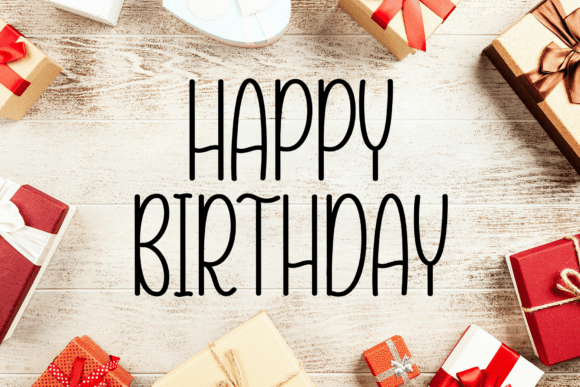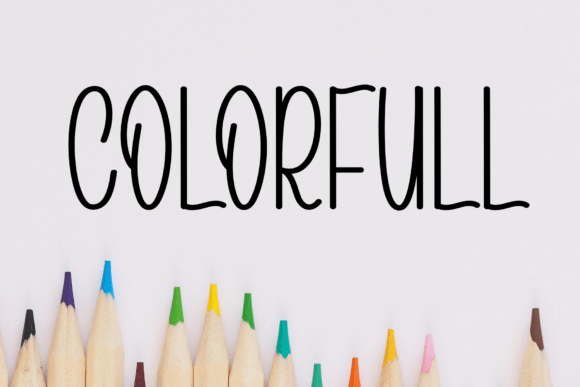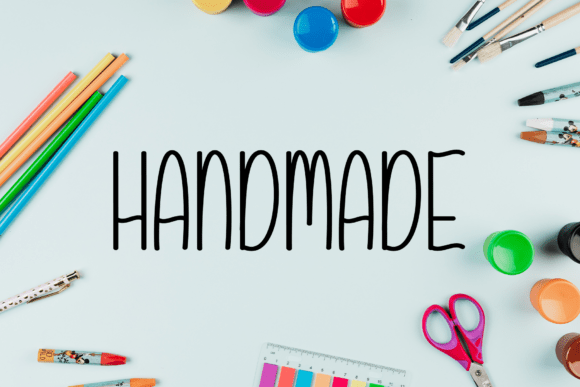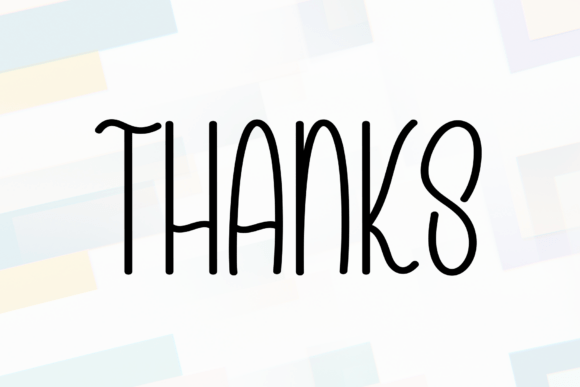
The Editorial Font: Elevate Your Design with a Relaxed yet Luxurious Touch
In the world of typography, fonts play a crucial role in conveying the tone and personality of a brand or design. Among the numerous font styles available, the Editorial font has gained significant attention for its unique blend of casual elegance and sophistication. In this article, we’ll explore the characteristics, uses, and benefits of the Editorial font, making it a must-read for designers, crafters, and anyone looking to elevate their visual creations.
What is the Editorial Font?
The Editorial font is a handwritten typeface that mimics the look of writing with a marker. Its relaxed and sporty feel makes it an excellent choice for designs that require a touch of casual elegance. The font’s distinctive features include:
- Handwritten style: The Editorial font boasts a personal, hand-drawn feel that adds warmth and character to any design.
- Marker-like texture: The font’s texture resembles writing with a marker, giving it a unique and organic look.
- Relaxed and sporty vibe: The Editorial font exudes a carefree, sporty feel that’s perfect for designs that require a laid-back yet stylish approach.
Uses of the Editorial Font
The Editorial font is incredibly versatile, making it suitable for a wide range of design applications. Here are some popular uses:
- Branding and logos: The Editorial font is ideal for creating logos and branding materials that require a unique, eye-catching typography.
- Wedding supplies and stationery: The font’s elegant yet casual feel makes it perfect for wedding invitations, greeting cards, and other stationery.
- Fashion and lookbooks: The Editorial font is well-suited for fashion designs, lookbooks, and marketing promotions that require a stylish, high-end typography.
- Marketing and advertising: The font’s luxurious feel makes it an excellent choice for marketing materials, such as brochures, flyers, and posters.
Benefits of Using the Editorial Font
The Editorial font offers several benefits that make it a popular choice among designers and crafters:
- Unique and distinctive: The font’s handwritten style and marker-like texture set it apart from more traditional typography.
- Versatile: The Editorial font can be used in various design applications, from branding and logos to wedding supplies and marketing materials.
- Elegant yet casual: The font’s relaxed and sporty feel makes it perfect for designs that require a balance of sophistication and approachability.
- Easy to read: Despite its handwritten style, the Editorial font is clear and easy to read, making it suitable for body text and headings.
Tips for Using the Editorial Font
To get the most out of the Editorial font, consider the following tips:
- Pair with complementary fonts: Combine the Editorial font with other typography to create a unique and visually appealing design.
- Experiment with colors and textures: Take advantage of the font’s versatility by trying out different colors and textures.
- Use it sparingly: While the Editorial font is elegant and sophisticated, using it sparingly can make it more effective and impactful.
In conclusion, the Editorial font is a versatile and stylish typeface that can elevate any design with its unique blend of casual elegance and sophistication. Its relaxed and sporty feel makes it perfect for branding, logos, wedding supplies, greeting cards, fashion, lookbooks, marketing promotions, and more. By understanding the characteristics, uses, and benefits of the Editorial font, designers and crafters can create stunning visual creations that leave a lasting impression.